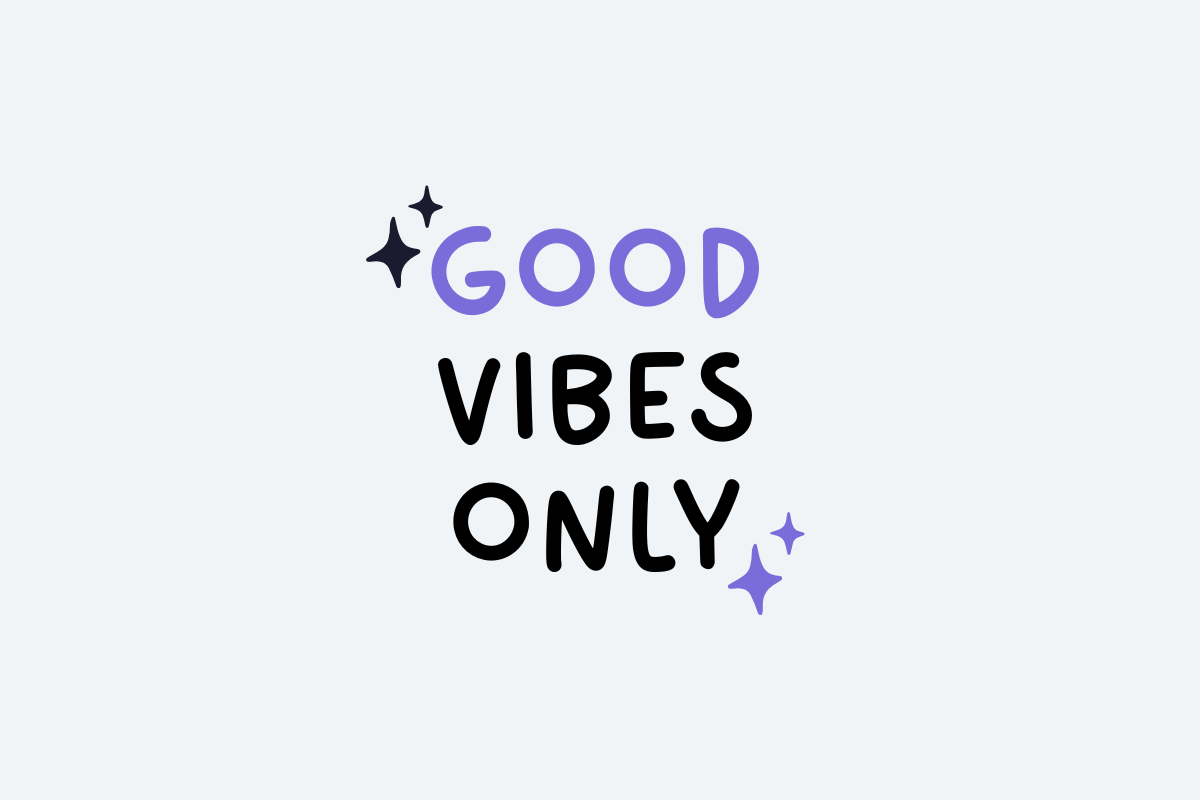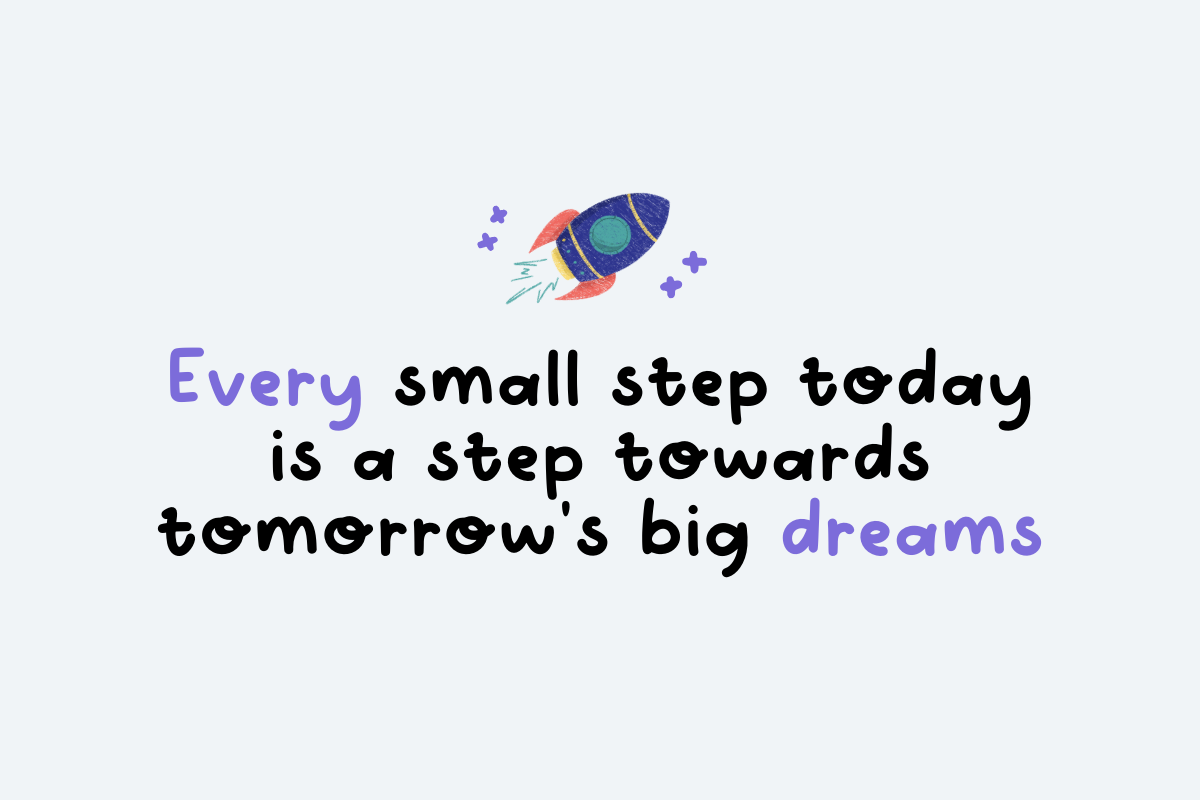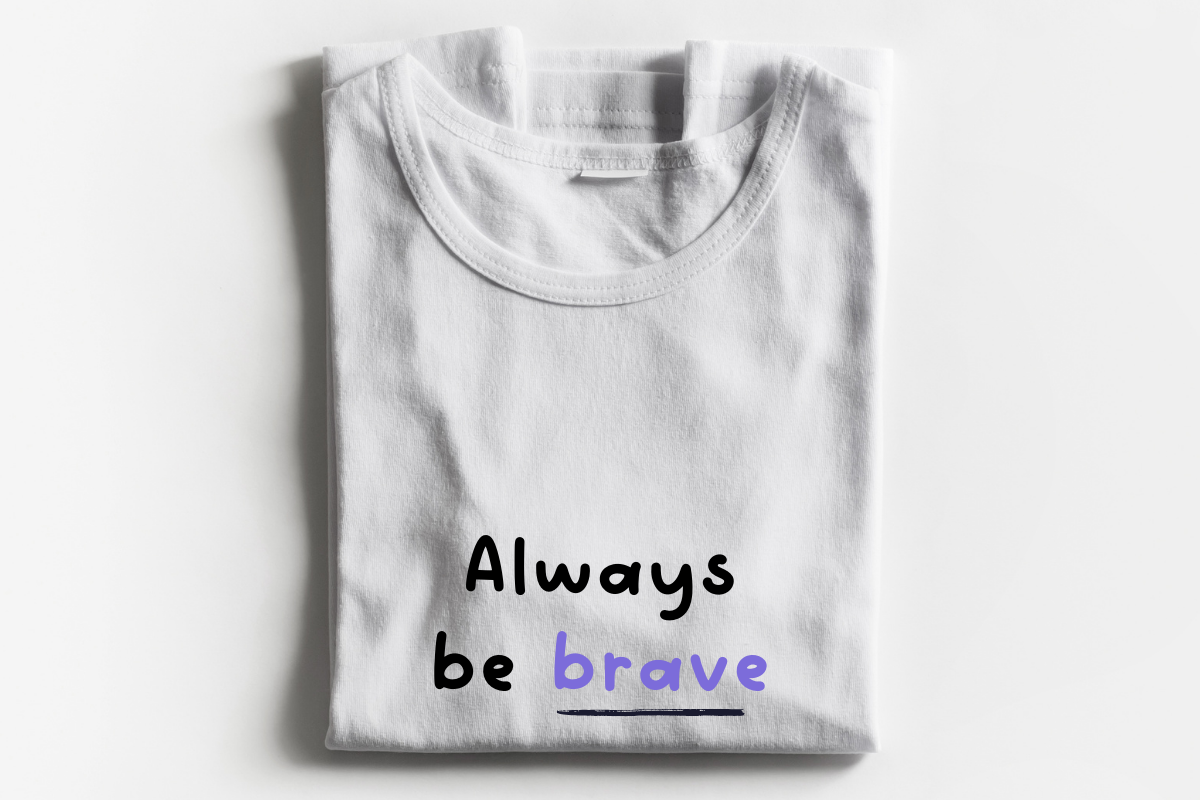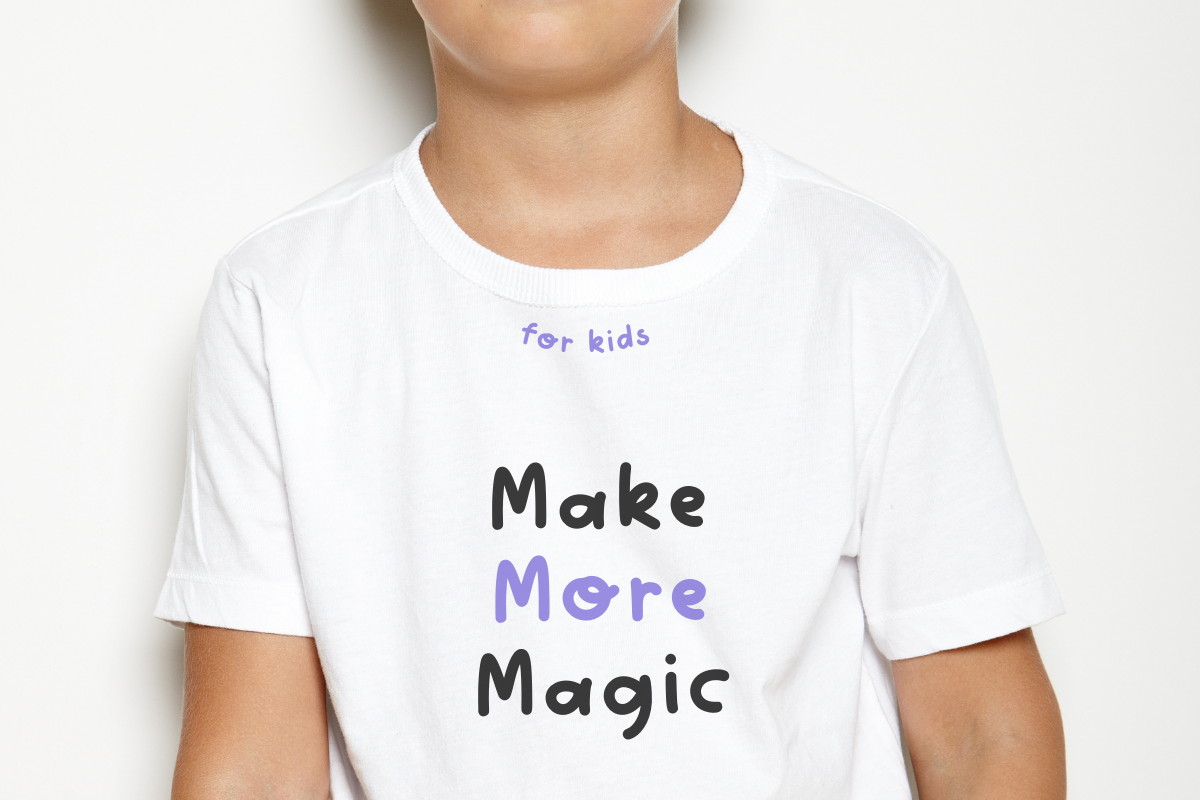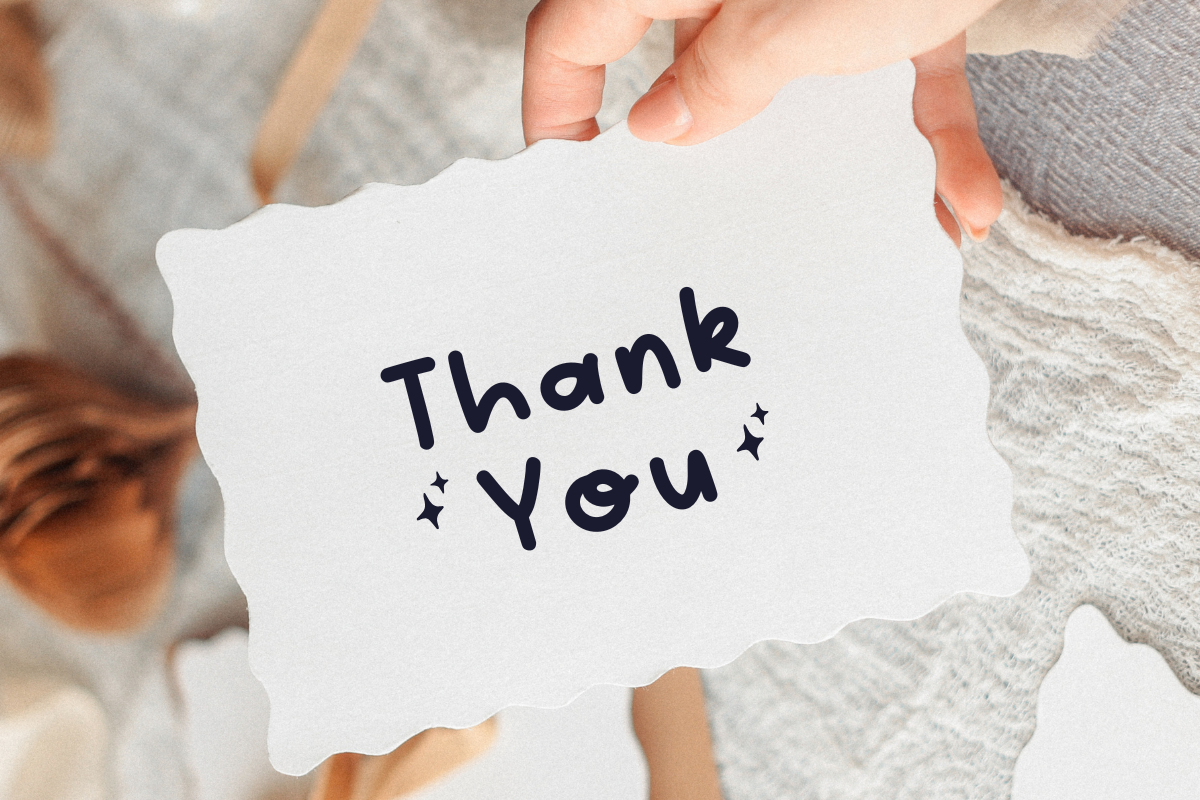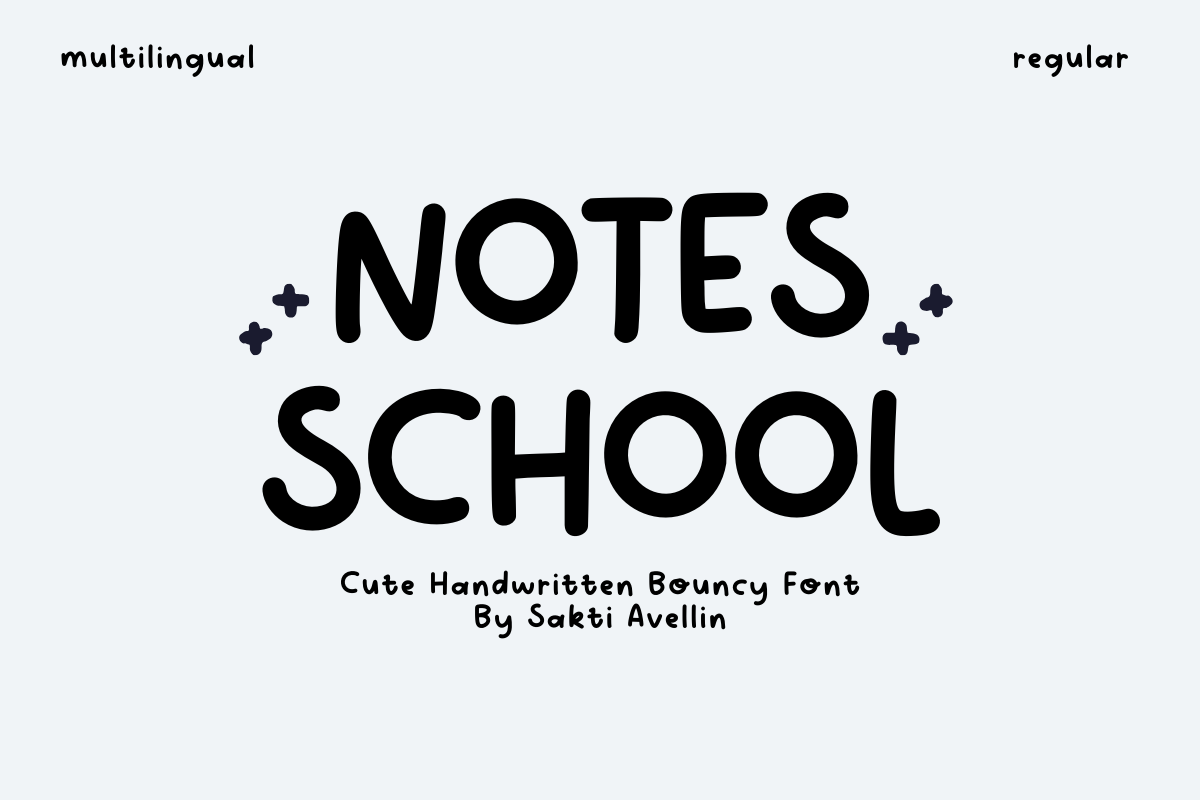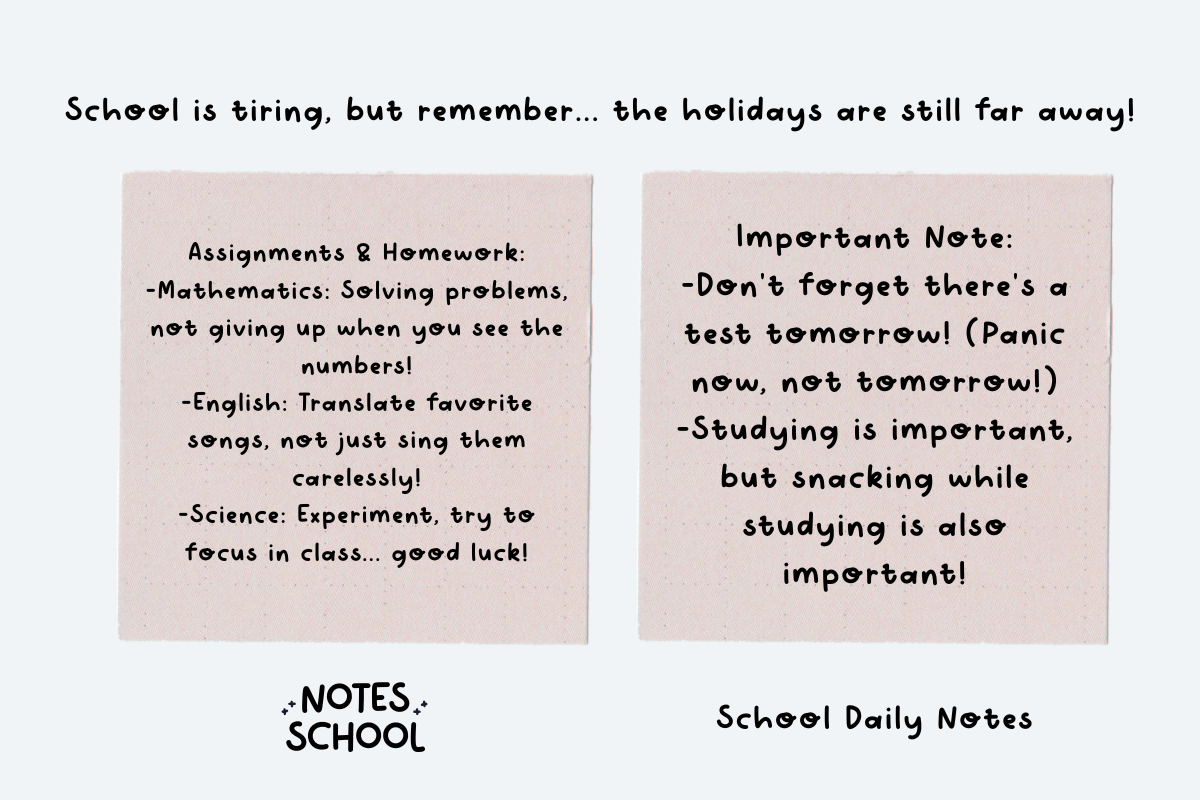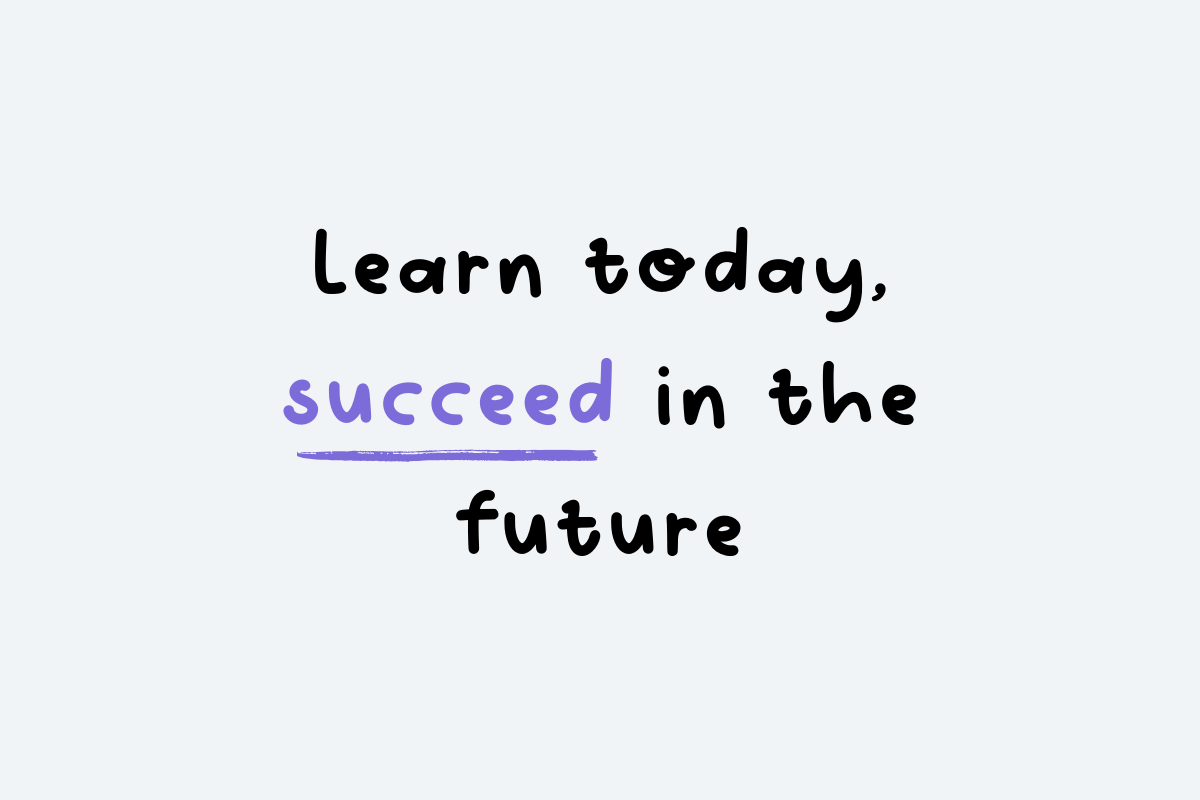
Notes School - Cute Handwritten Font
Notes School is a wonderfully fun, clear, and cute handwritten bouncy font that is perfect for youthful, engaging, and educational designs. This chunky display font features rounded, legible characters with a playful, irregular baseline, making it essential for kids' branding, cheerful school projects, fun t-shirt designs, nursery decor, and educational graphics. Its high readability and bouncy style ensure it is a powerful display typeface for headlines and product packaging aimed at a youthful audience. The font is multilingual and available in regular style. Make learning and design fun with this delightful and modern children's font!